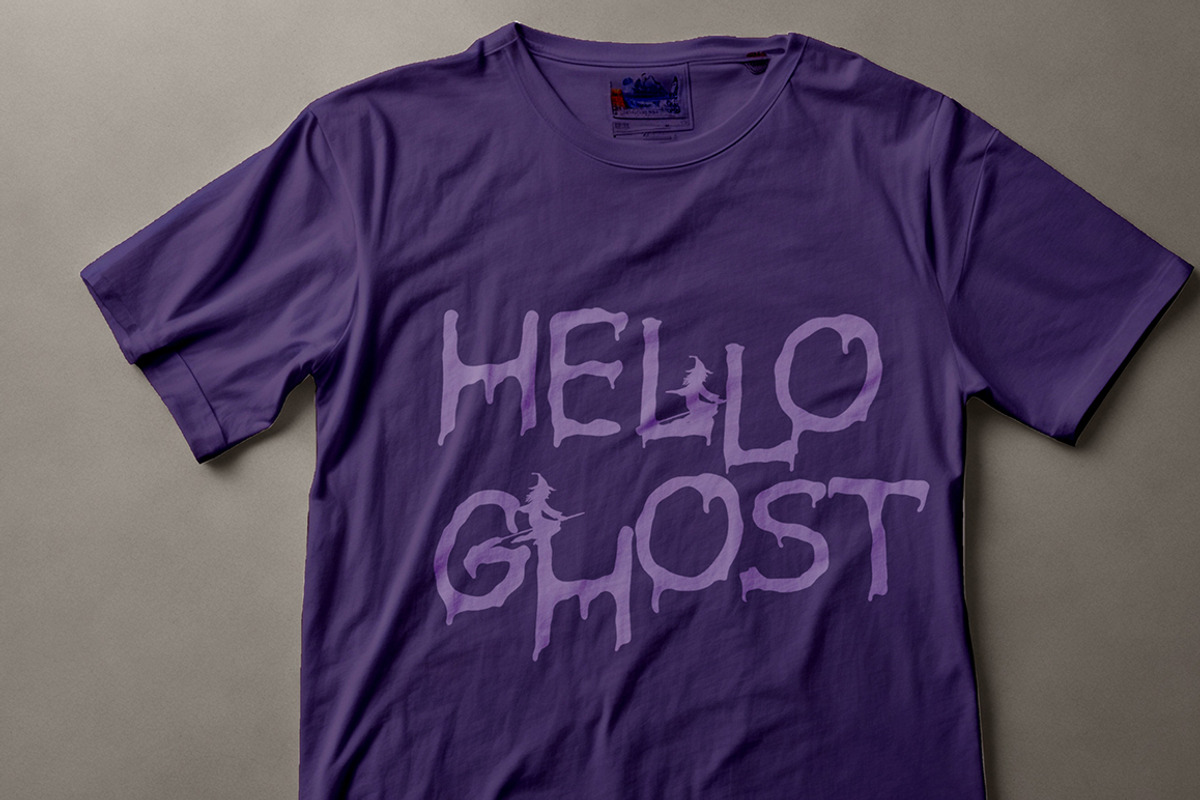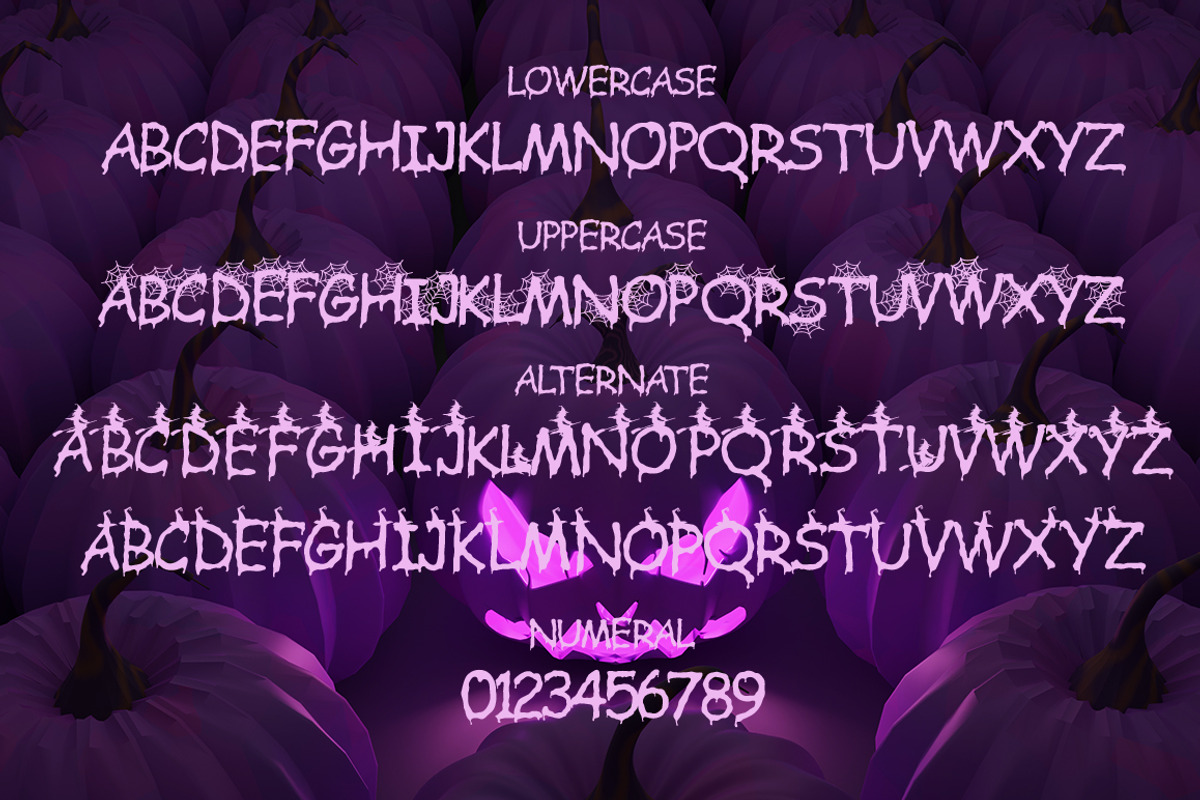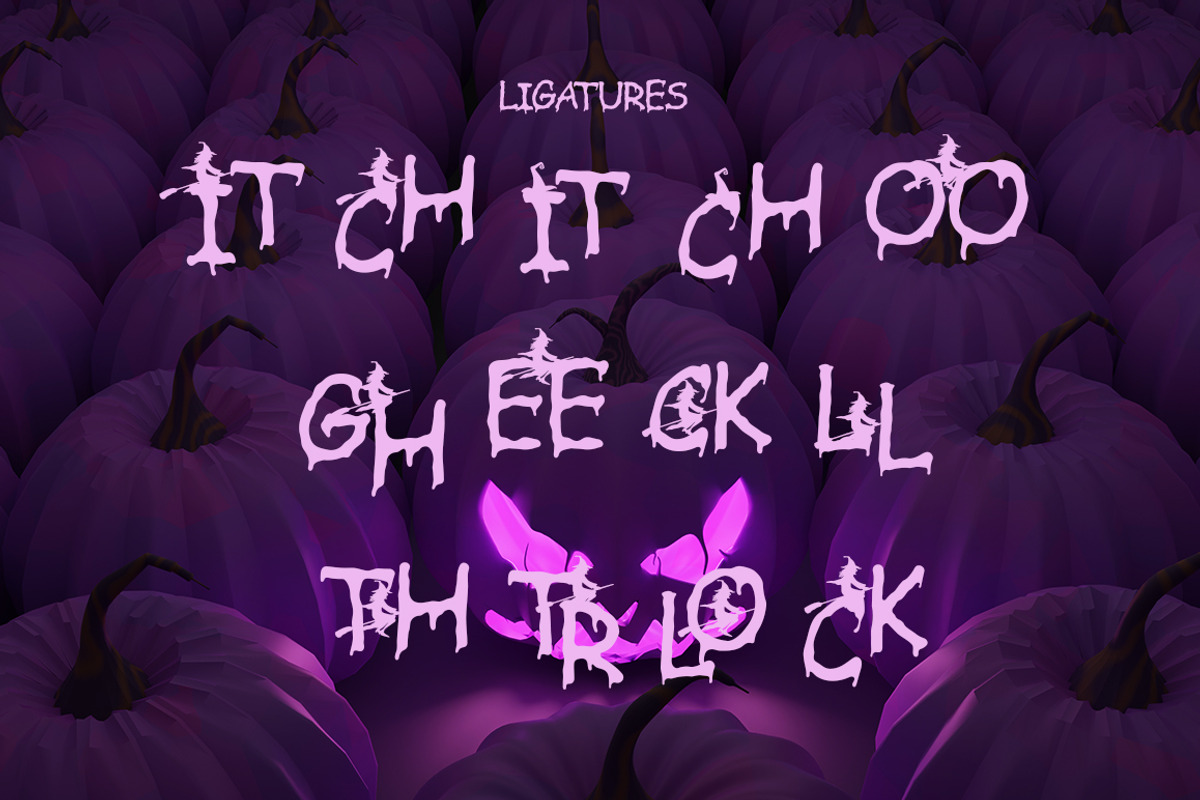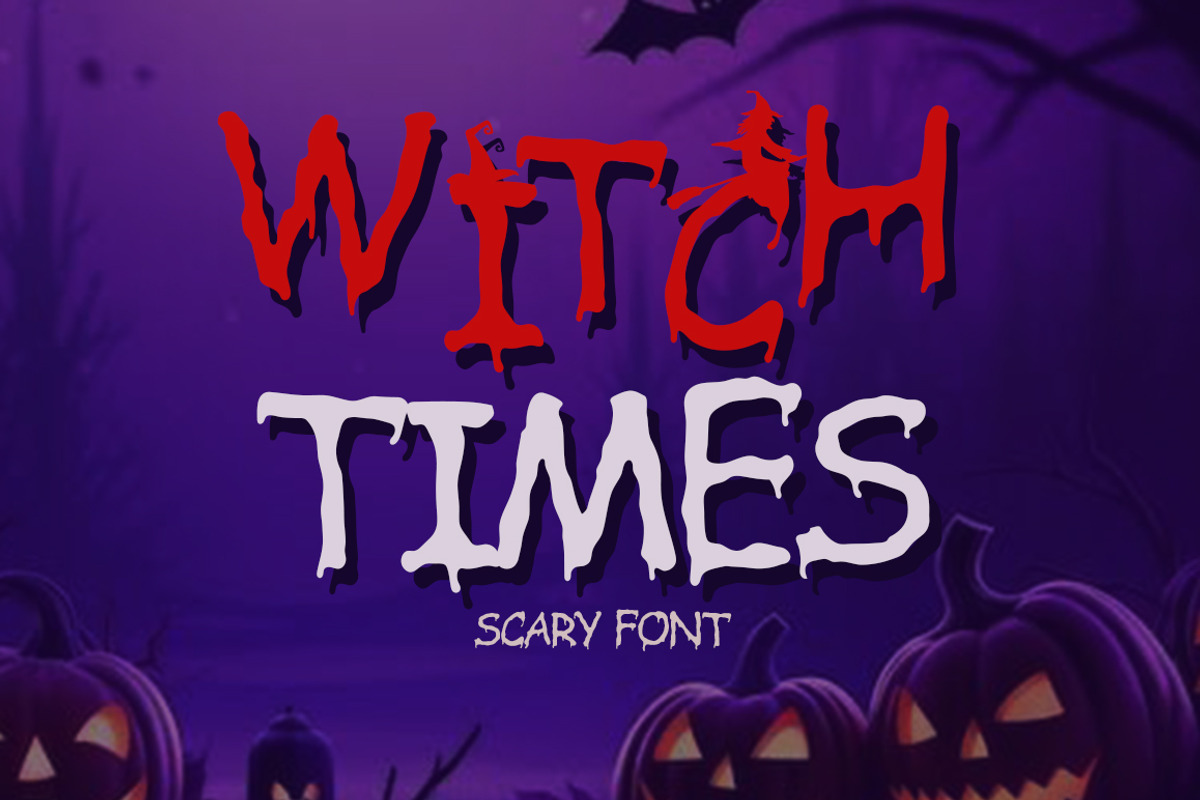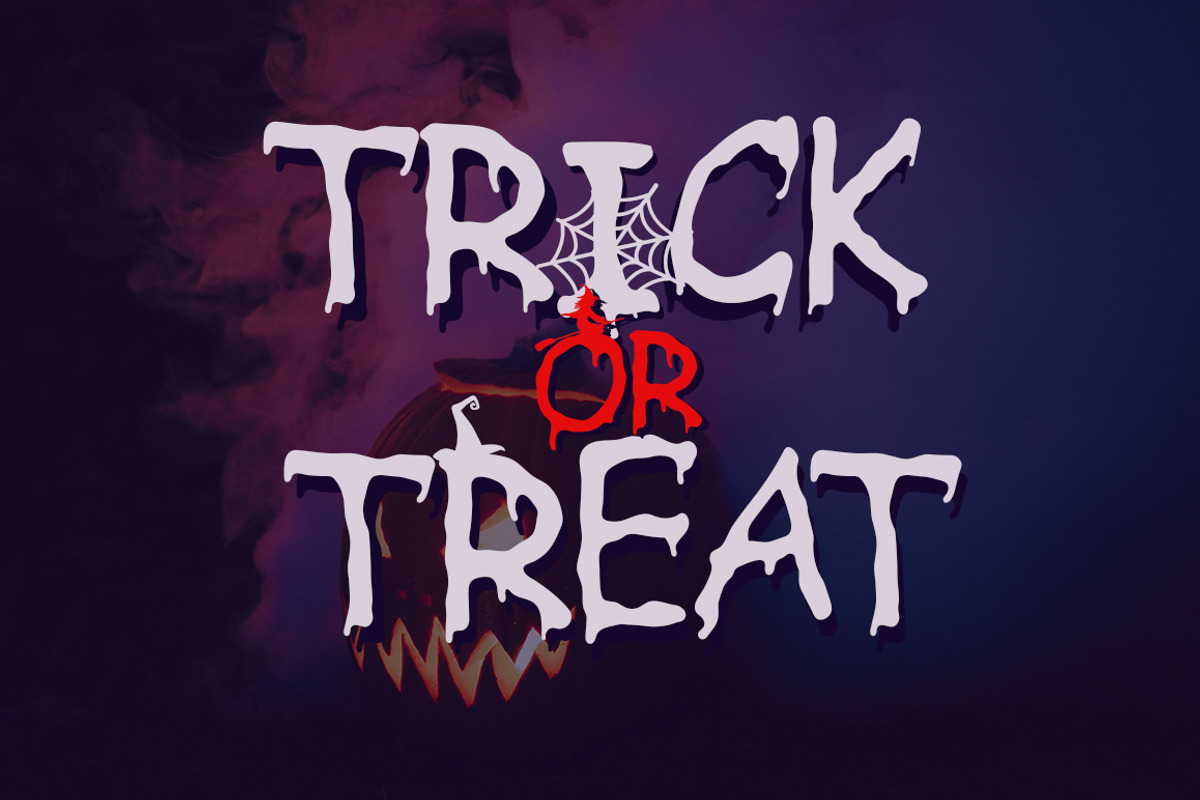
Witch Times
Witch Times is a spooky font with a scary and cute decorative horror theme. Well designed to be a true favorite, this font has the potential to take your every creative idea to the highest level!